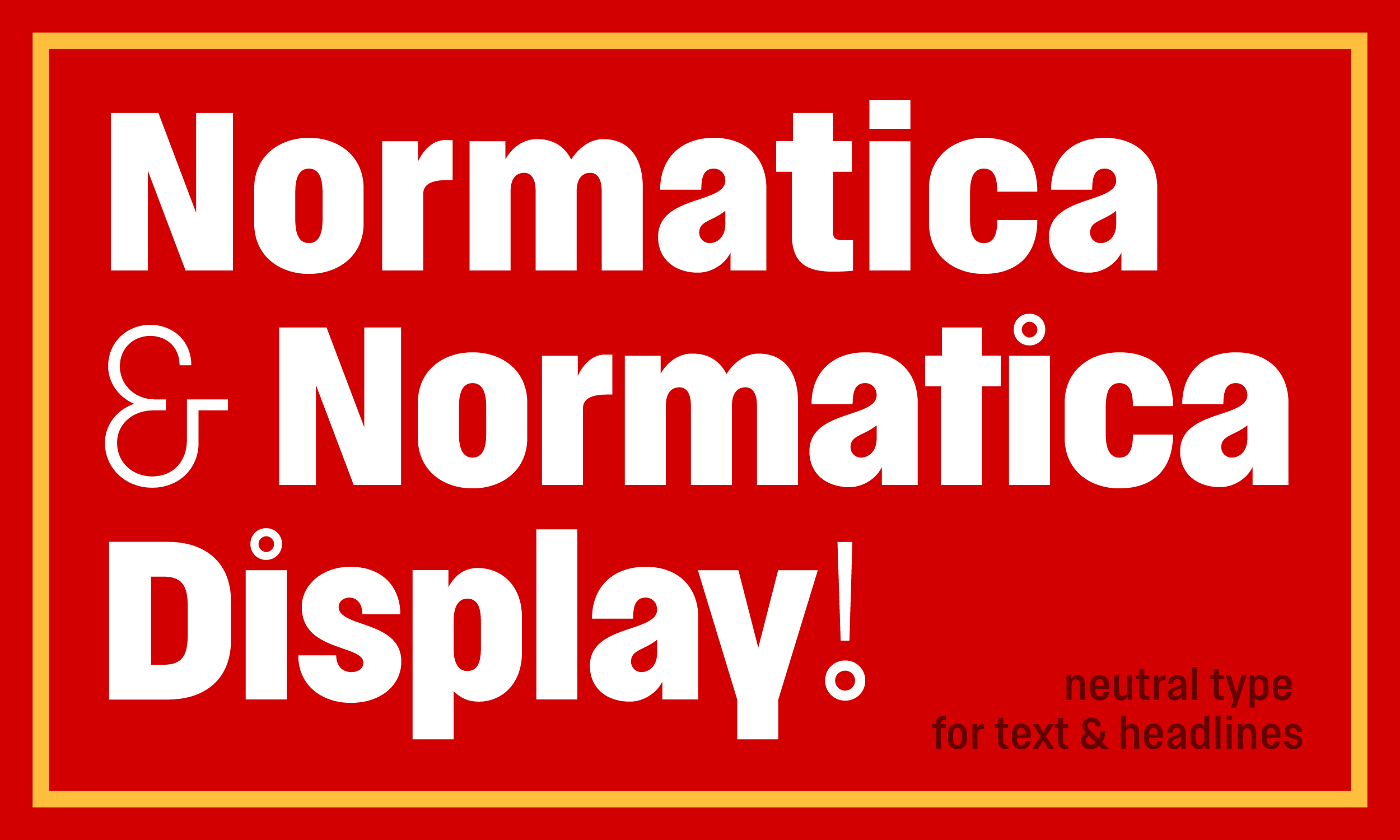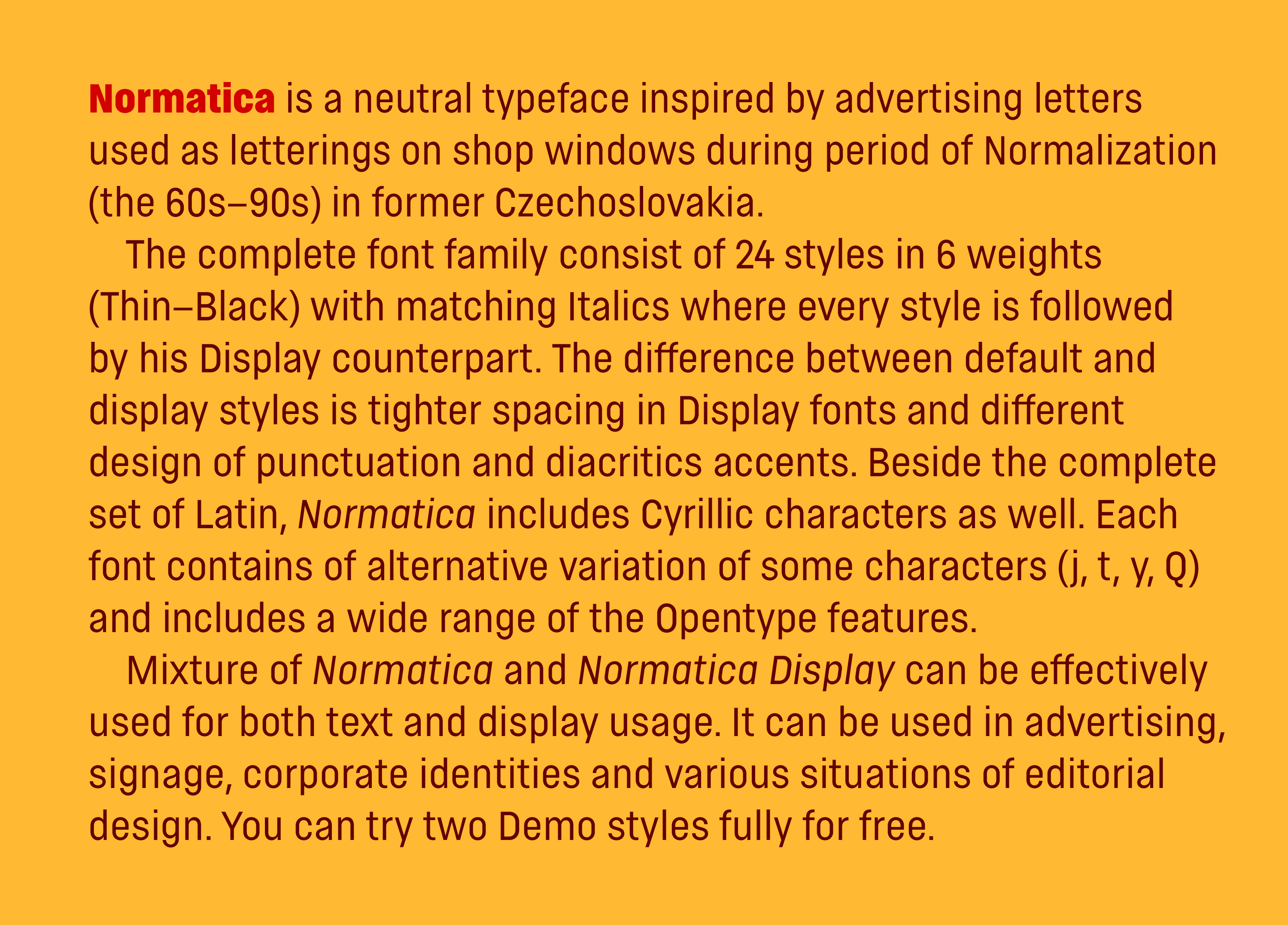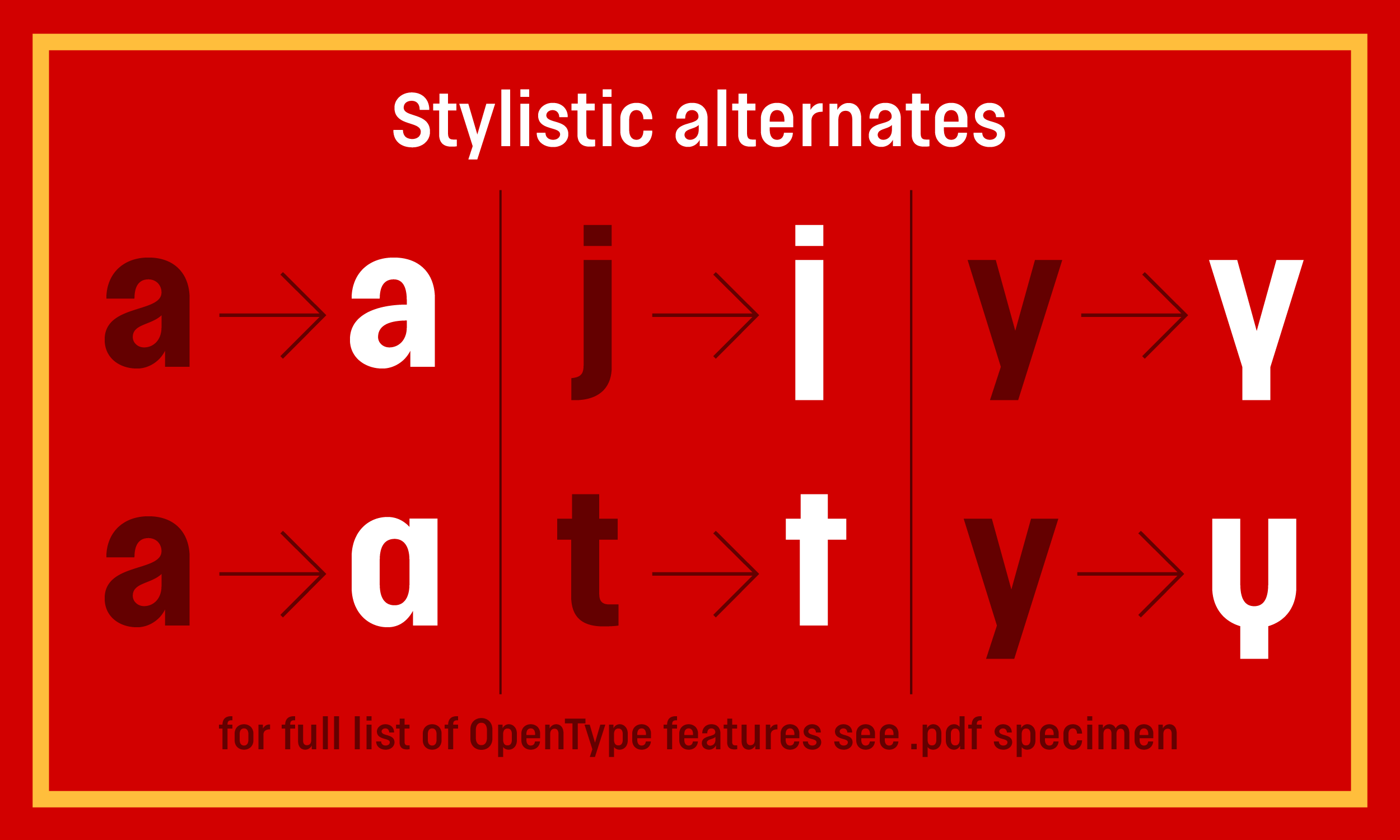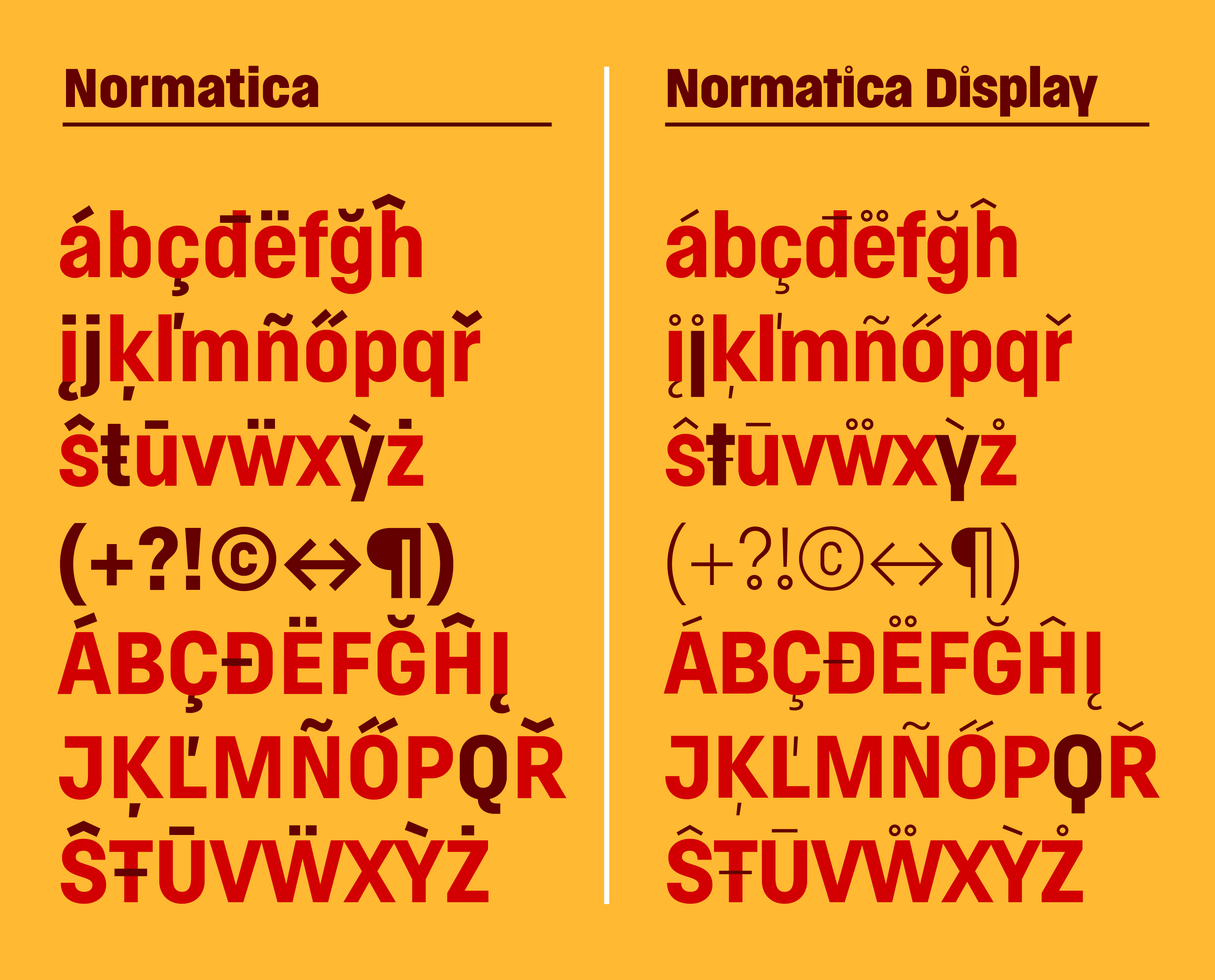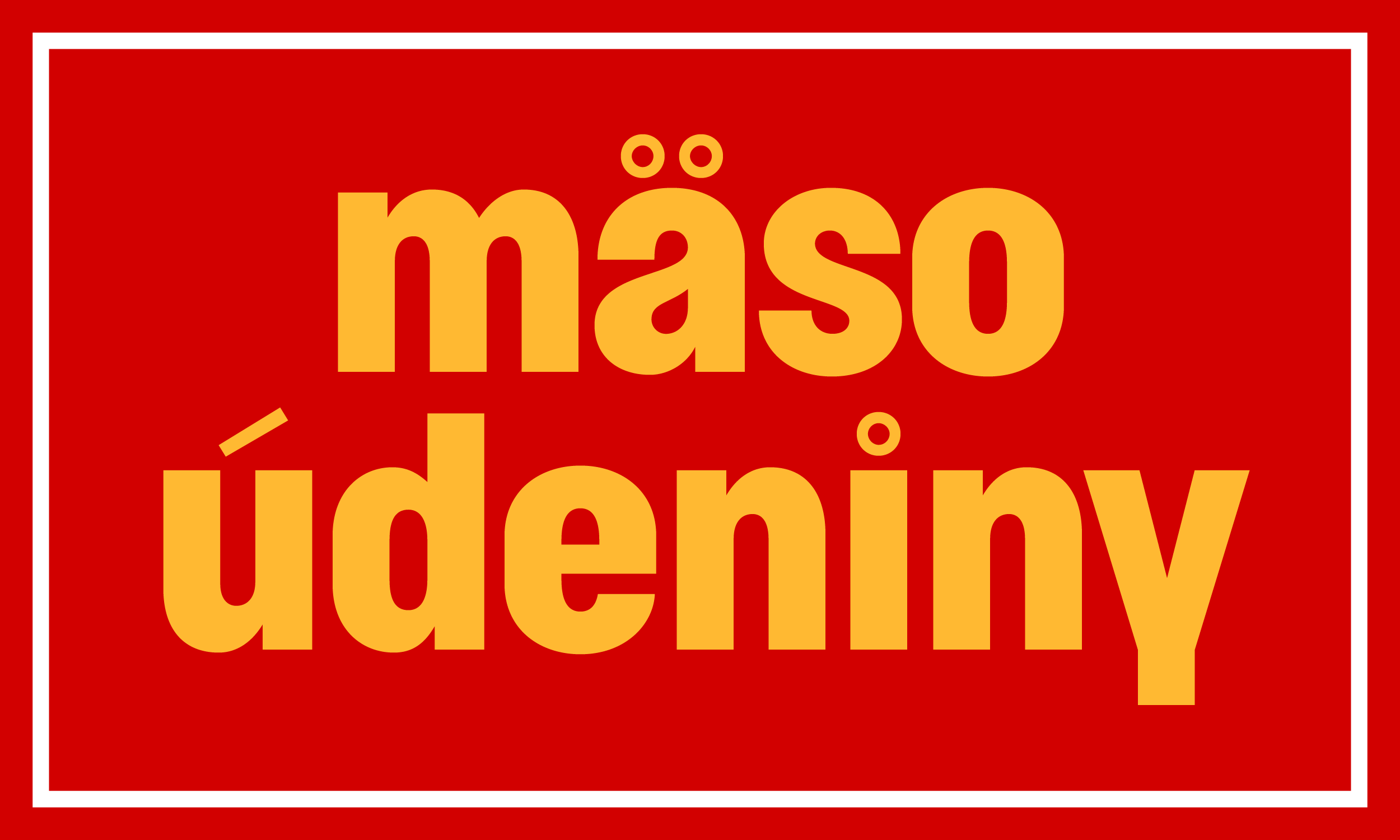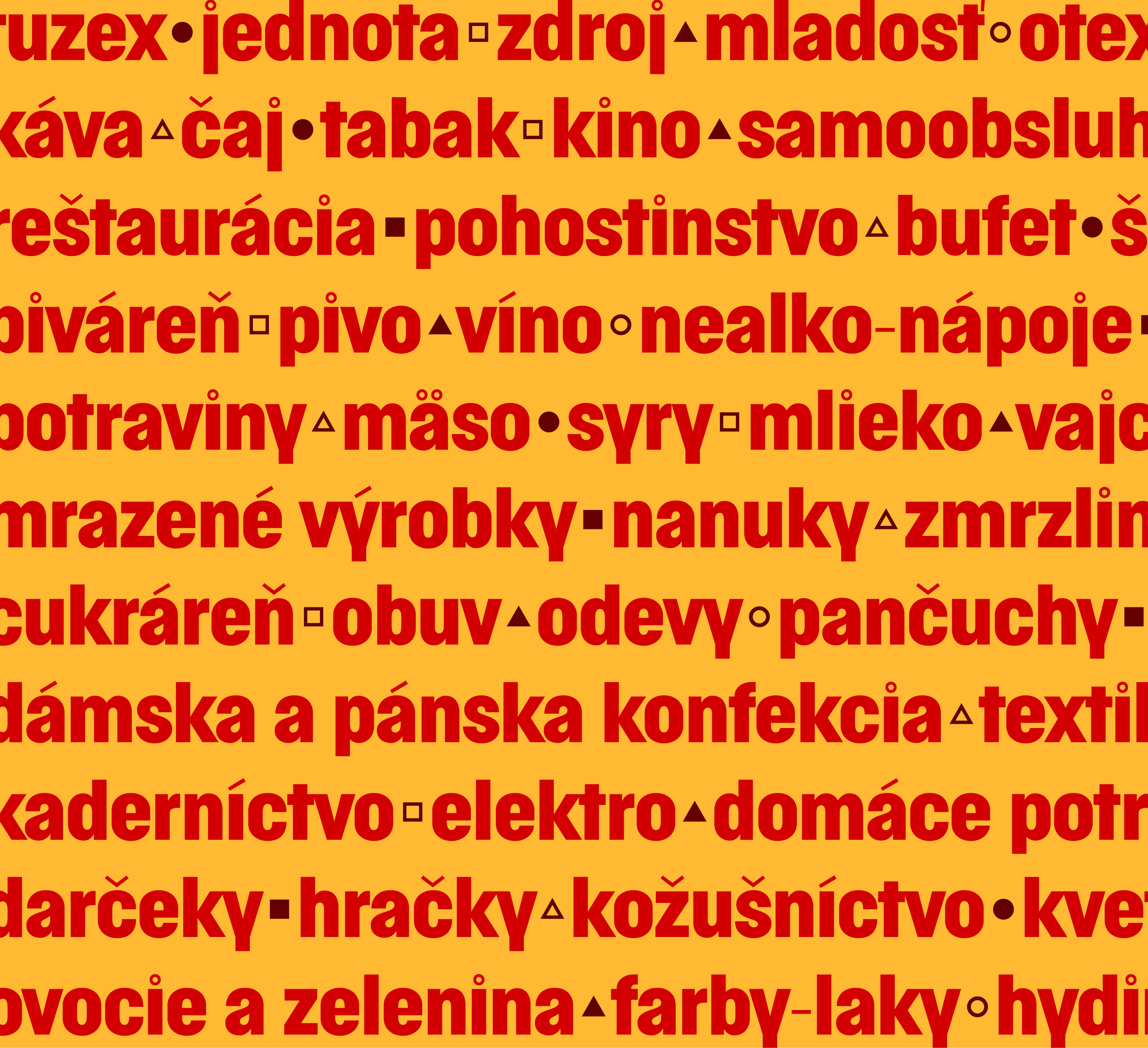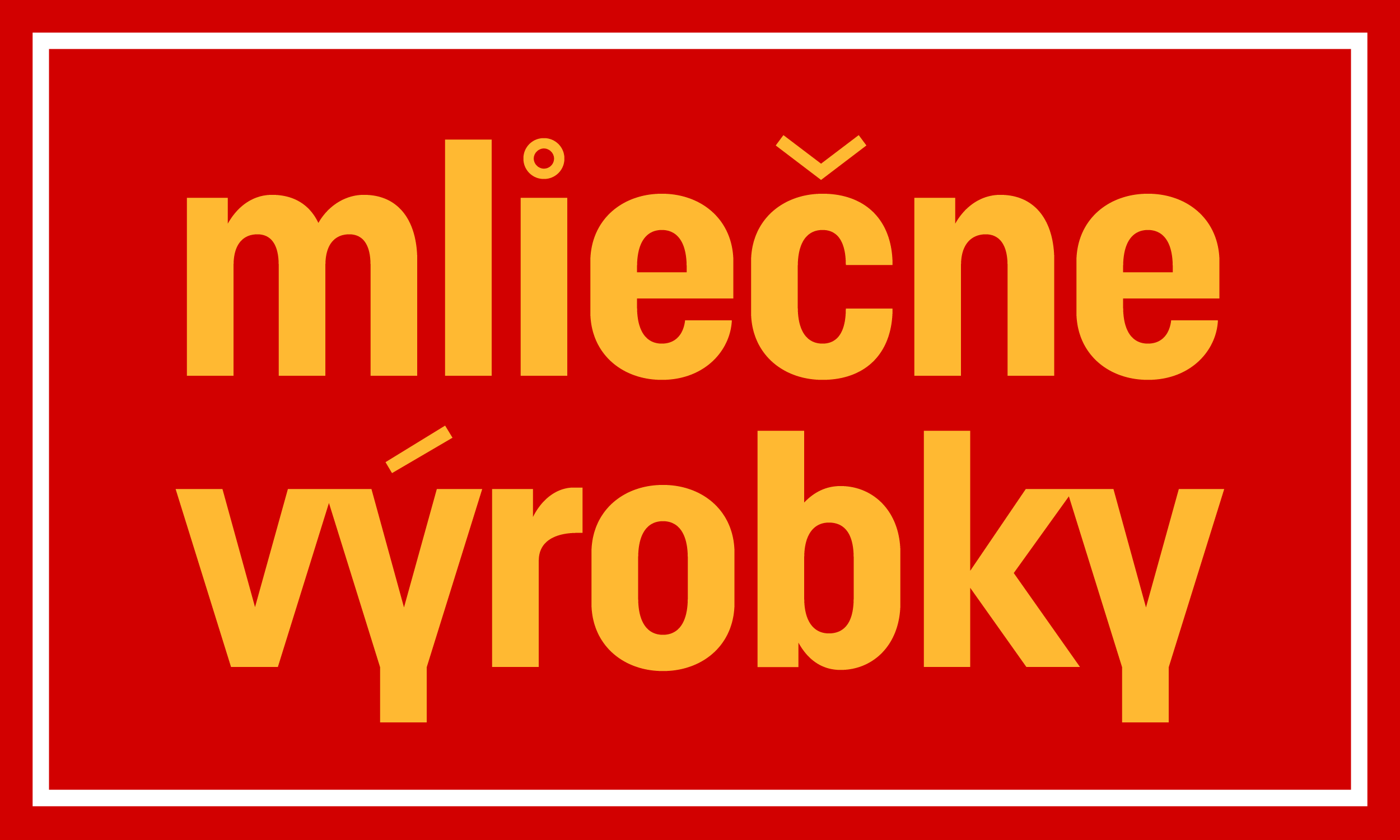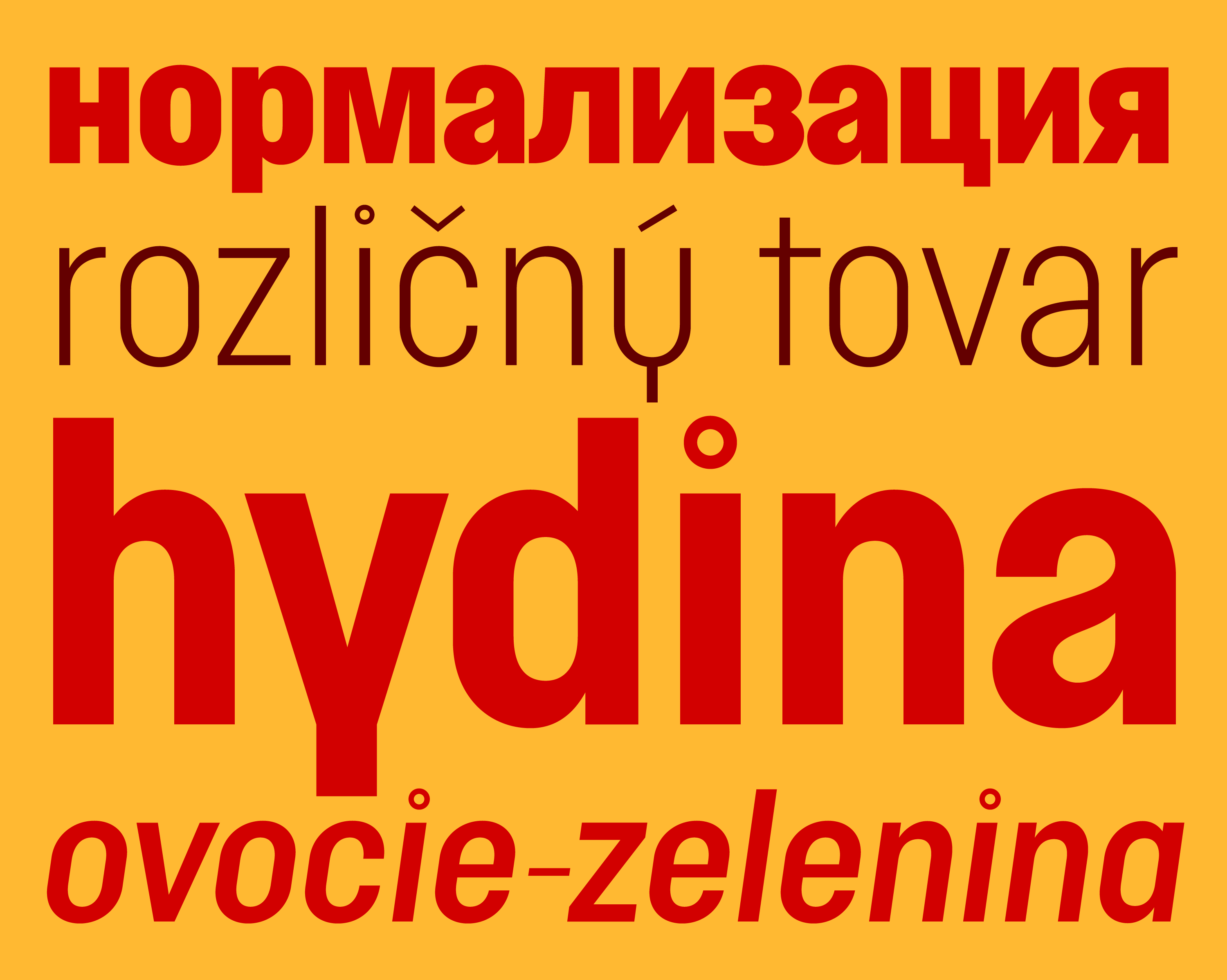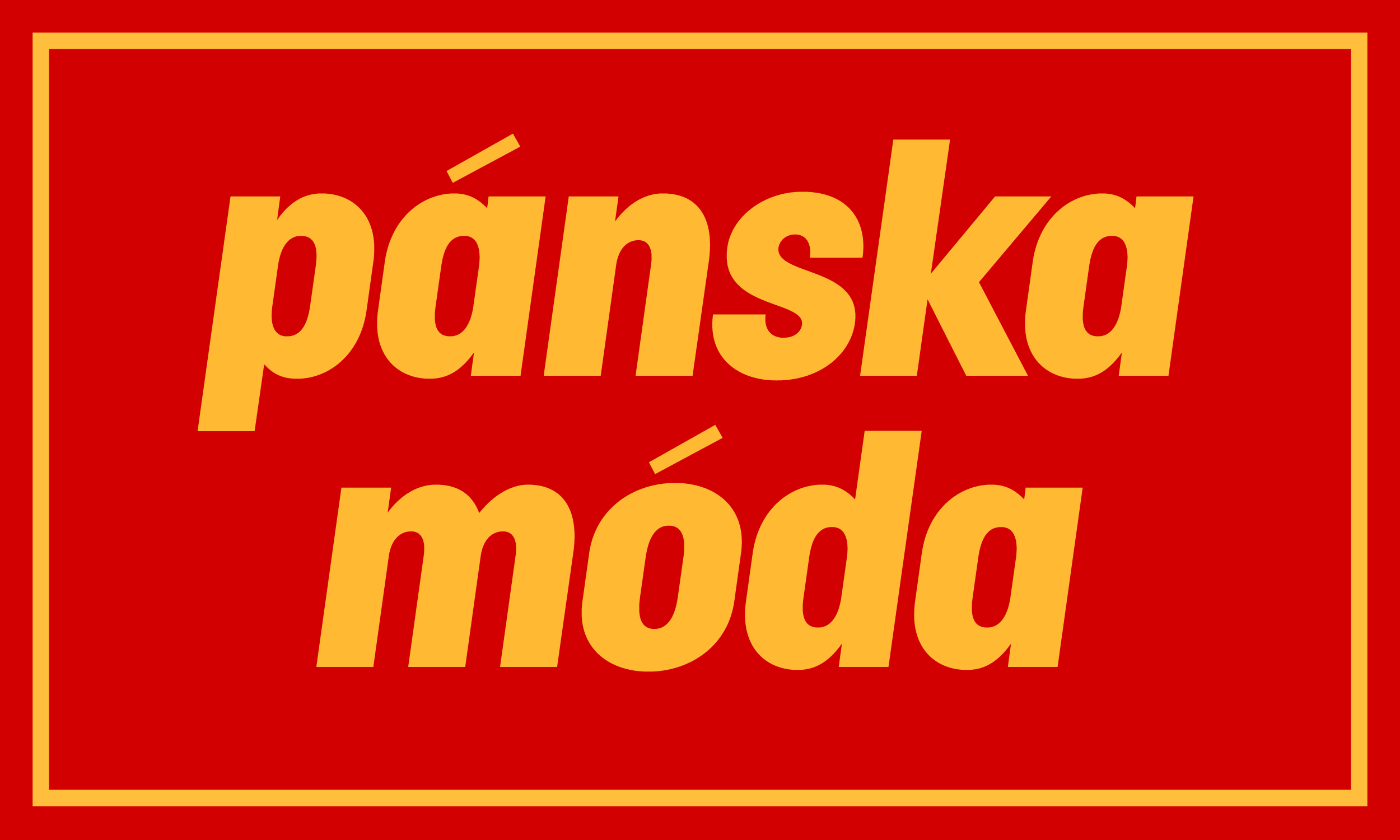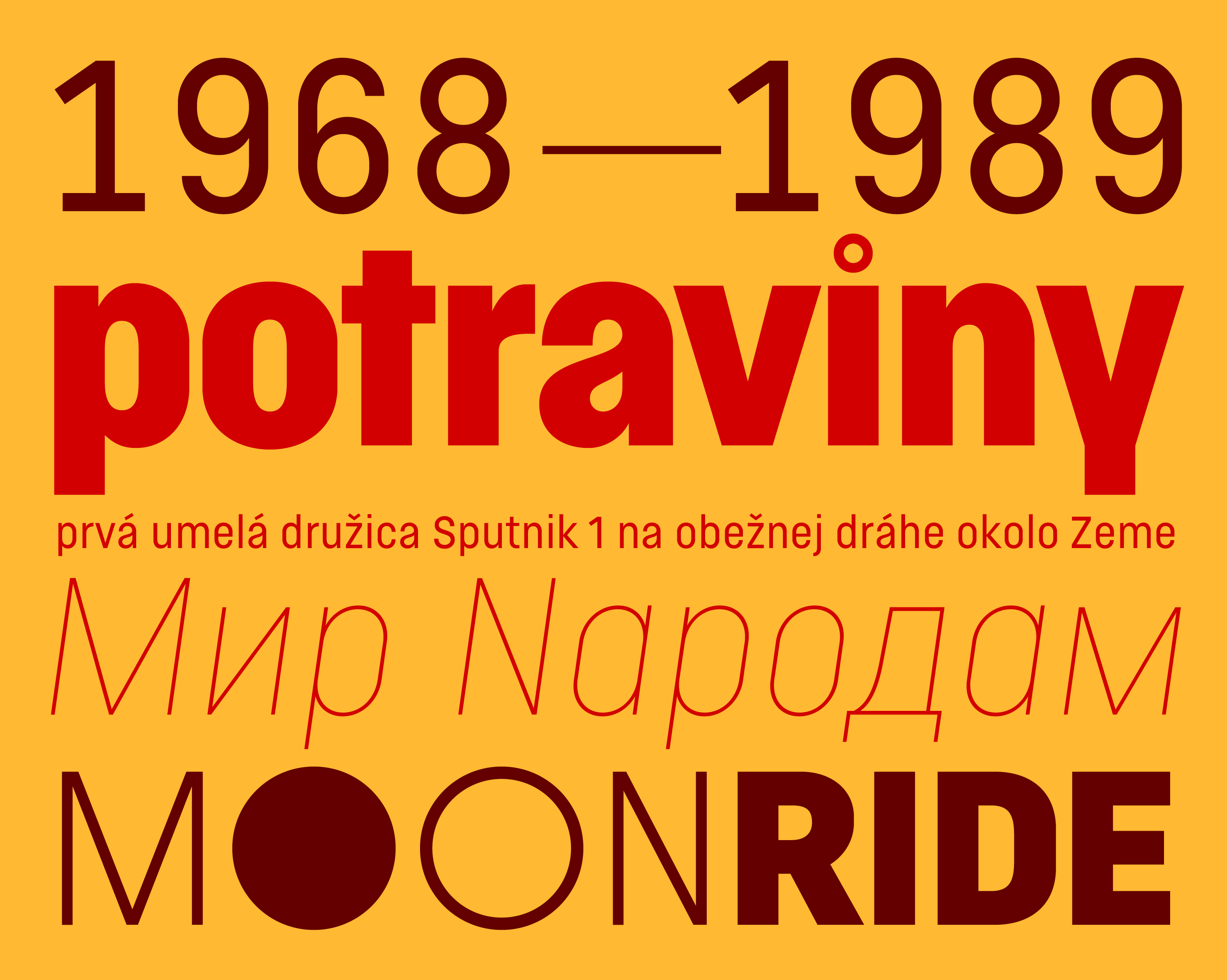
Normatica
Normatica is a neutral typeface inspired by advertising letters used as letterings on shop windows during period of Normalization (the 60s — 90s) in former Czechoslovakia. The complete font family consist of 24 styles in 6 weights (Thin — Black) with matching Italics where every style is followed by his Display counterpart. The difference between default and display styles is tighter spacing in Display fonts and different design of punctuation and diacritics accents. Beside the complete set of Latin, Normatica includes Cyrillic characters as well.  Mixture of Normatica and Normatica Display can be effectively used for both text and display usage.
24 fonts • 6 weights (with Italics) • 2 font variants (Normatica/Normatica Display) • 702 glyphs • Latin + Cyrillic support © Samuel Čarnoký (2015 — 2016)